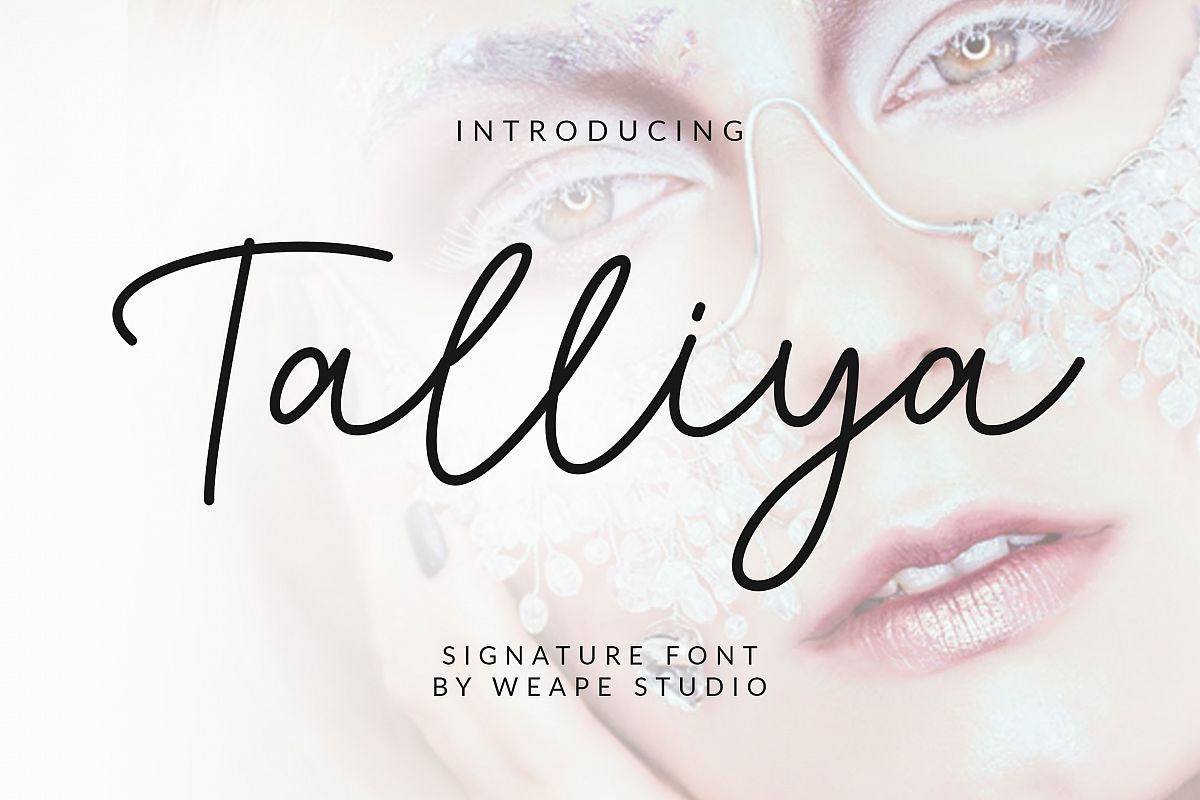
Talliya Signature Font
Talliya
Introducing Talliya Signature Font.
A font with a touch of modern signature style useful to beautify every sentence written. Talliya is built with Opentype features with additional ligatures and multilingual support.
With various ligatures, thus making it more varied. With modern calligraphy style for your daily and project needs ex: logo, fashion, label, photography watermark, quotes, blog header, poster, wedding, invitation, stationery, branding, letter, etc.